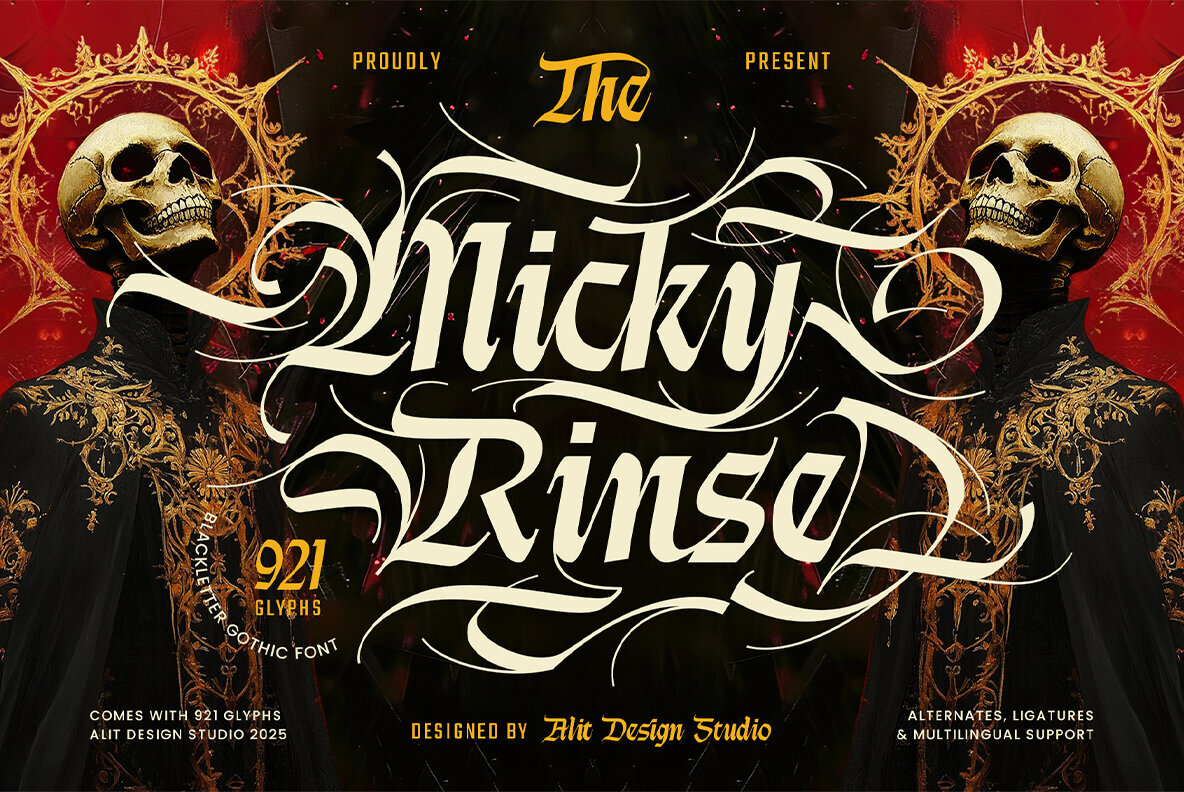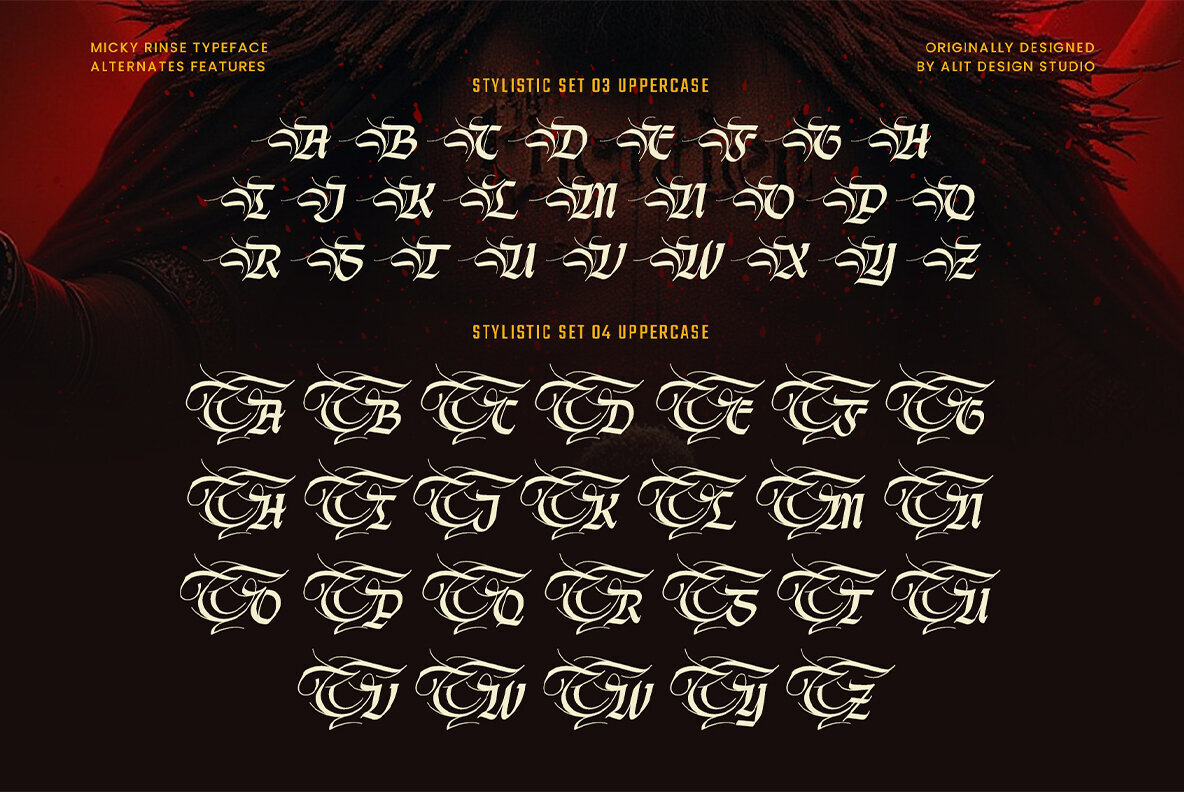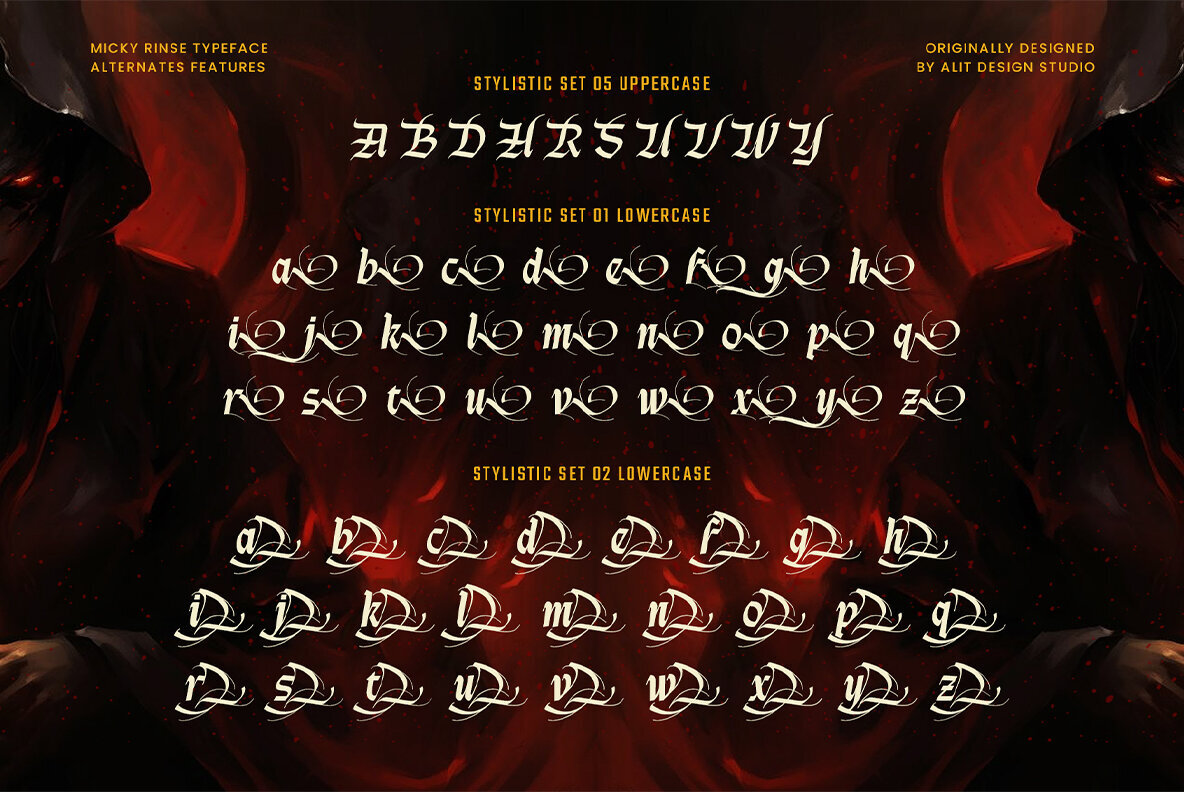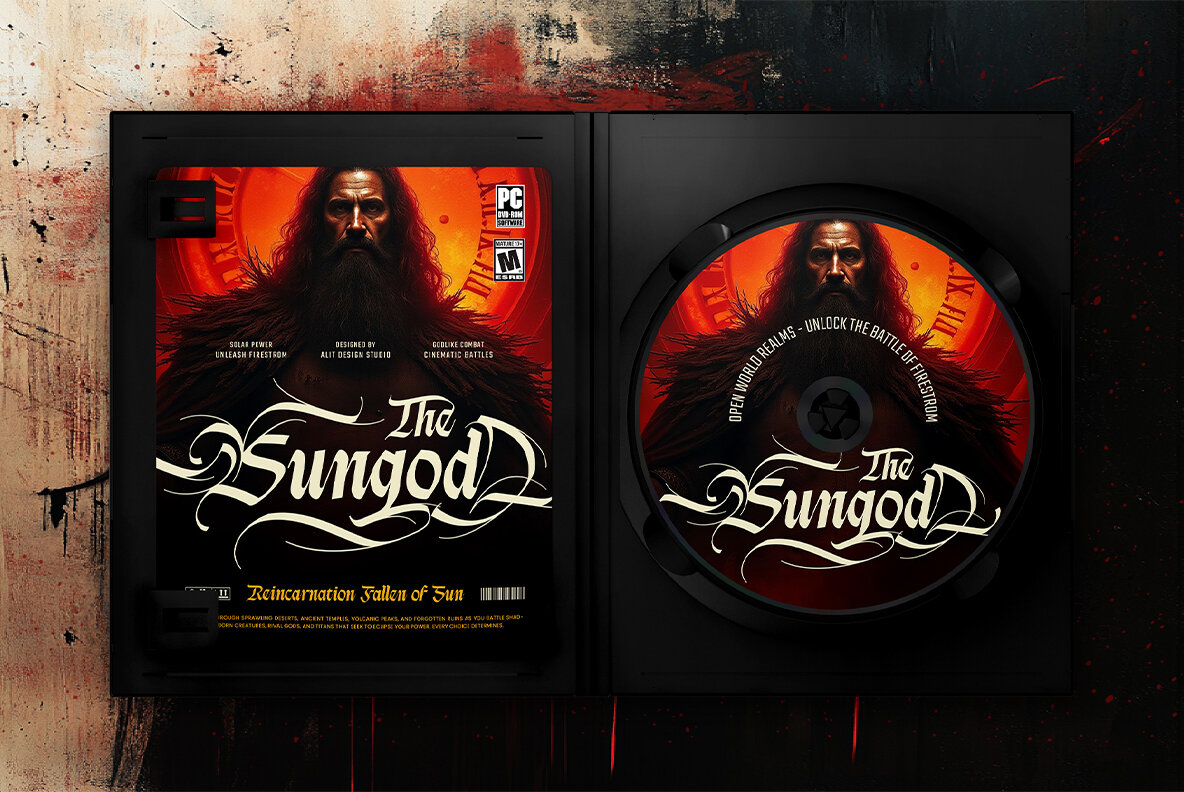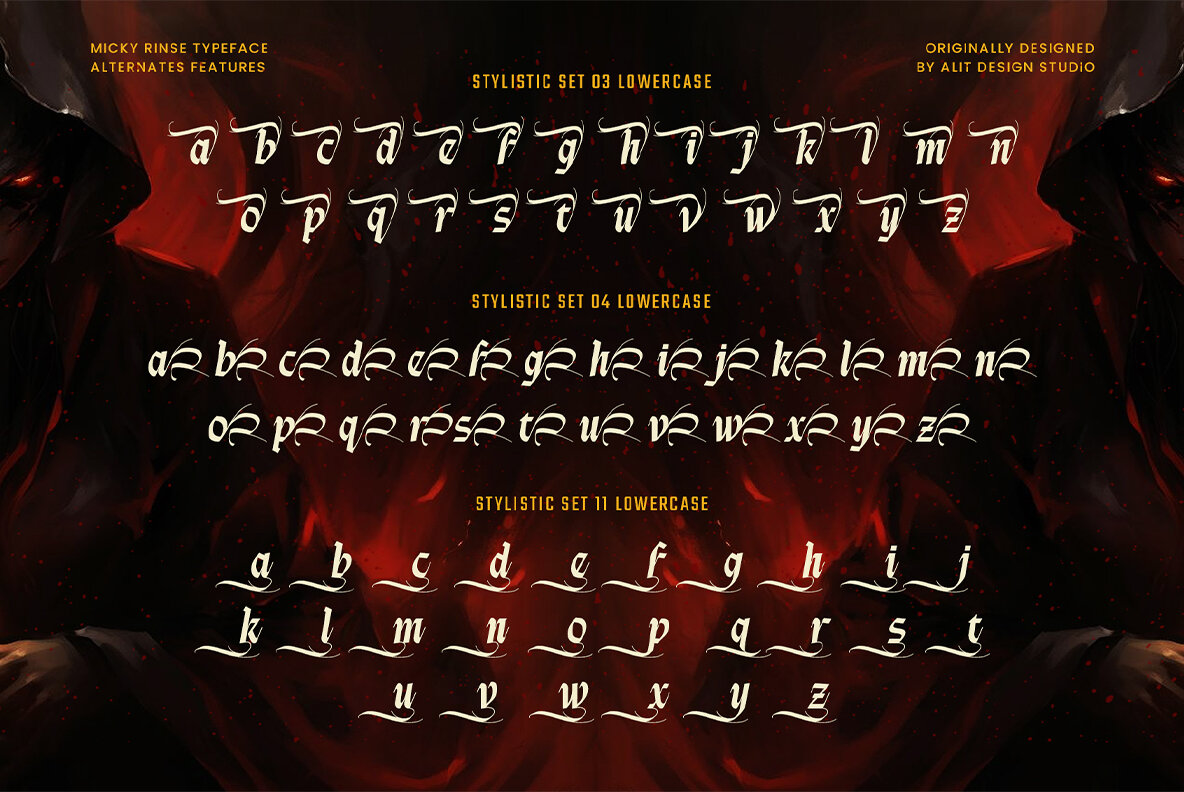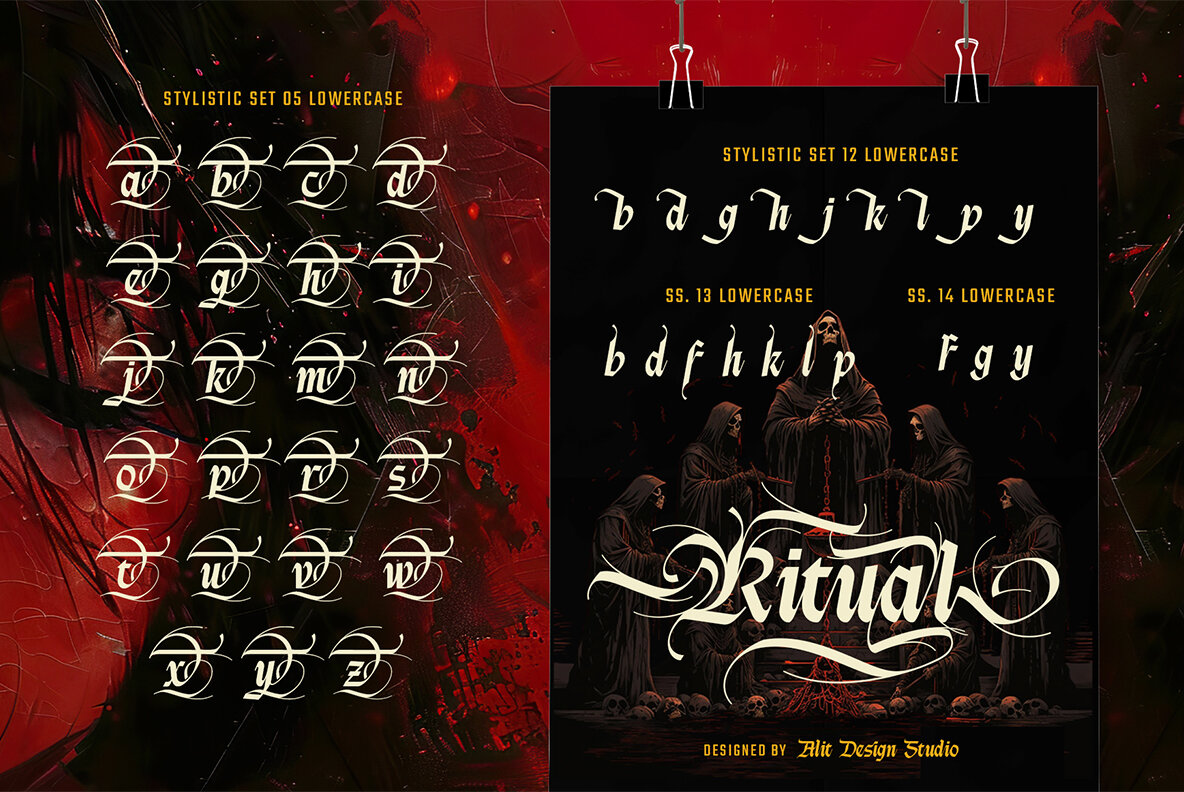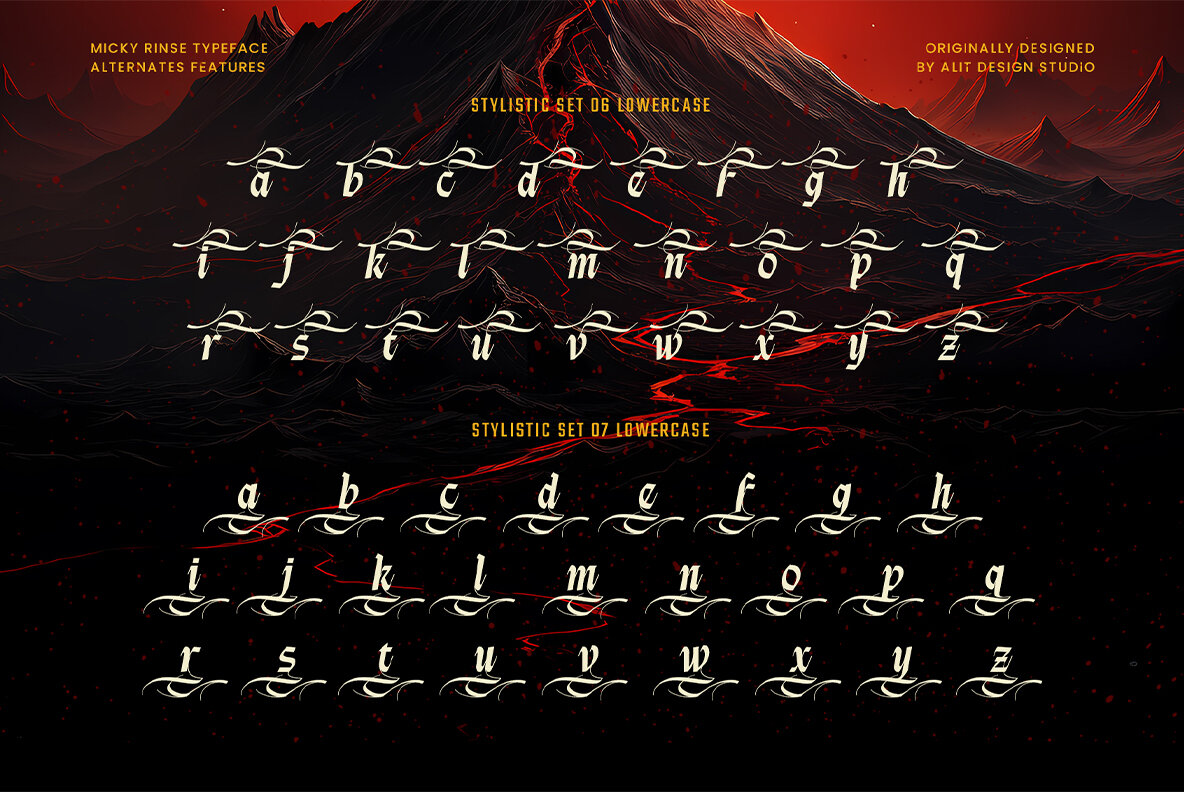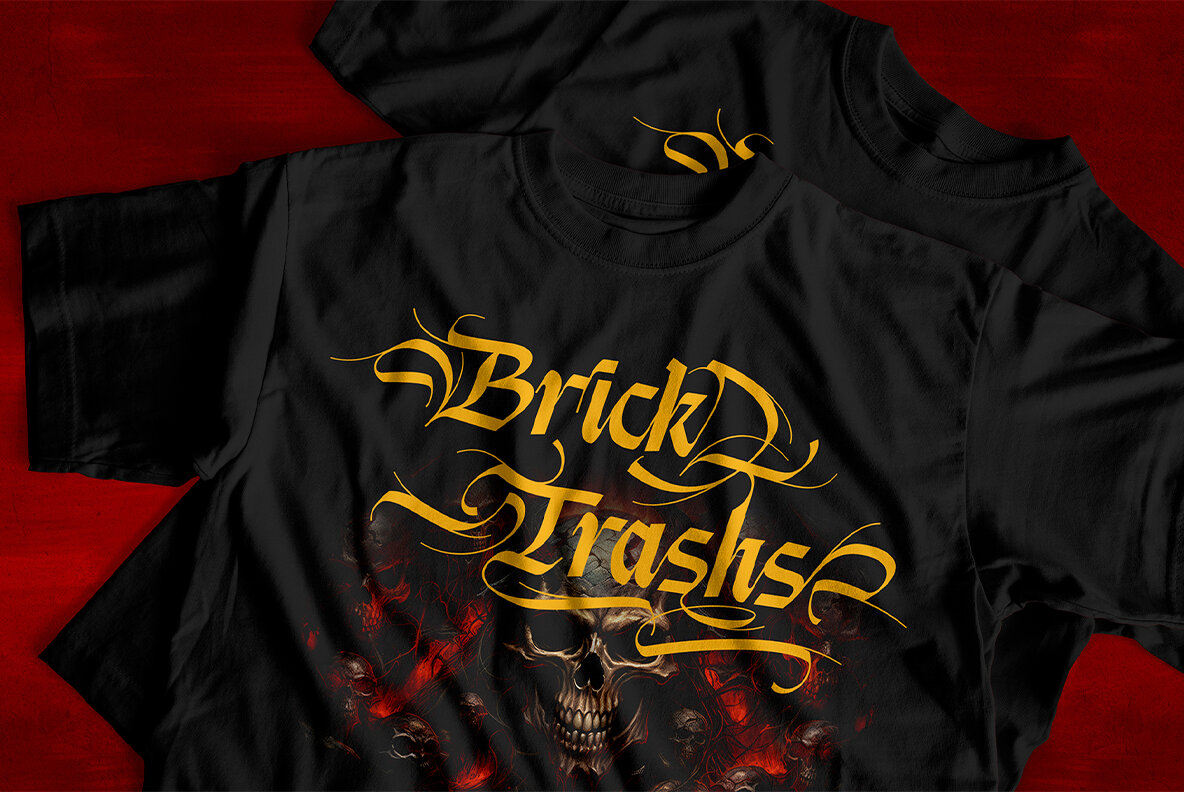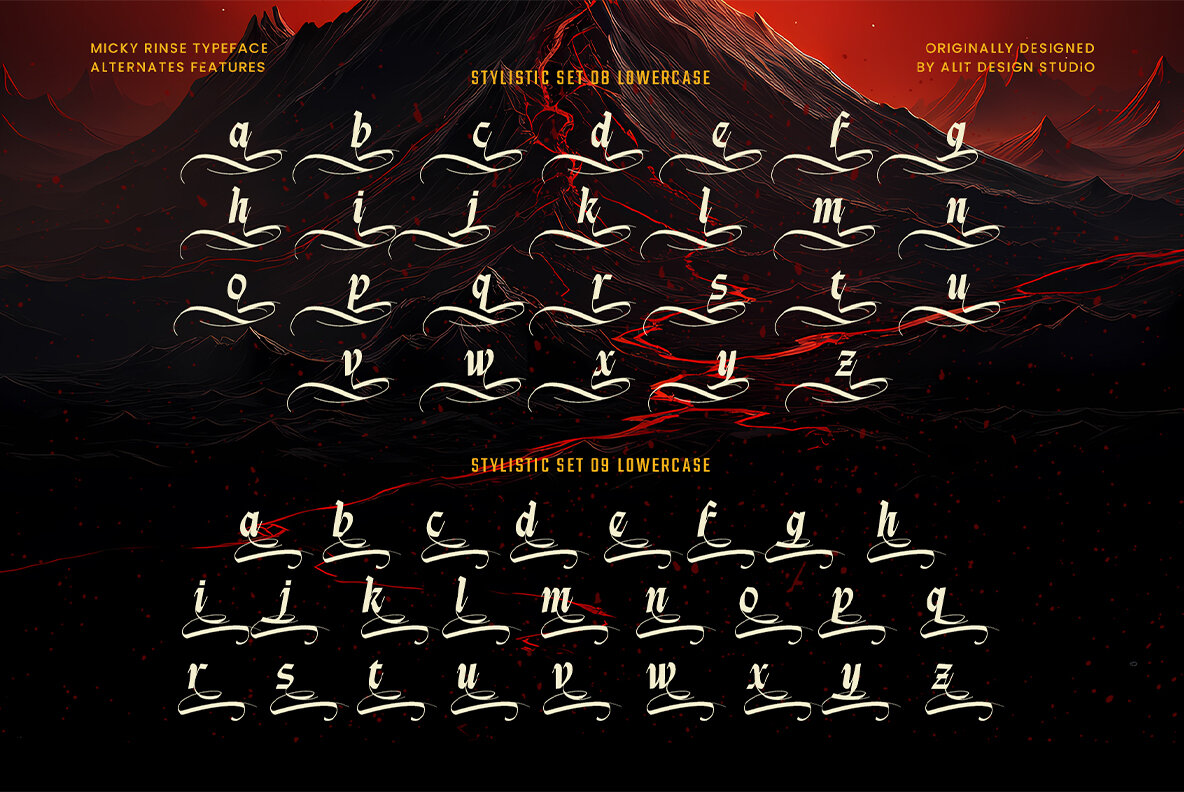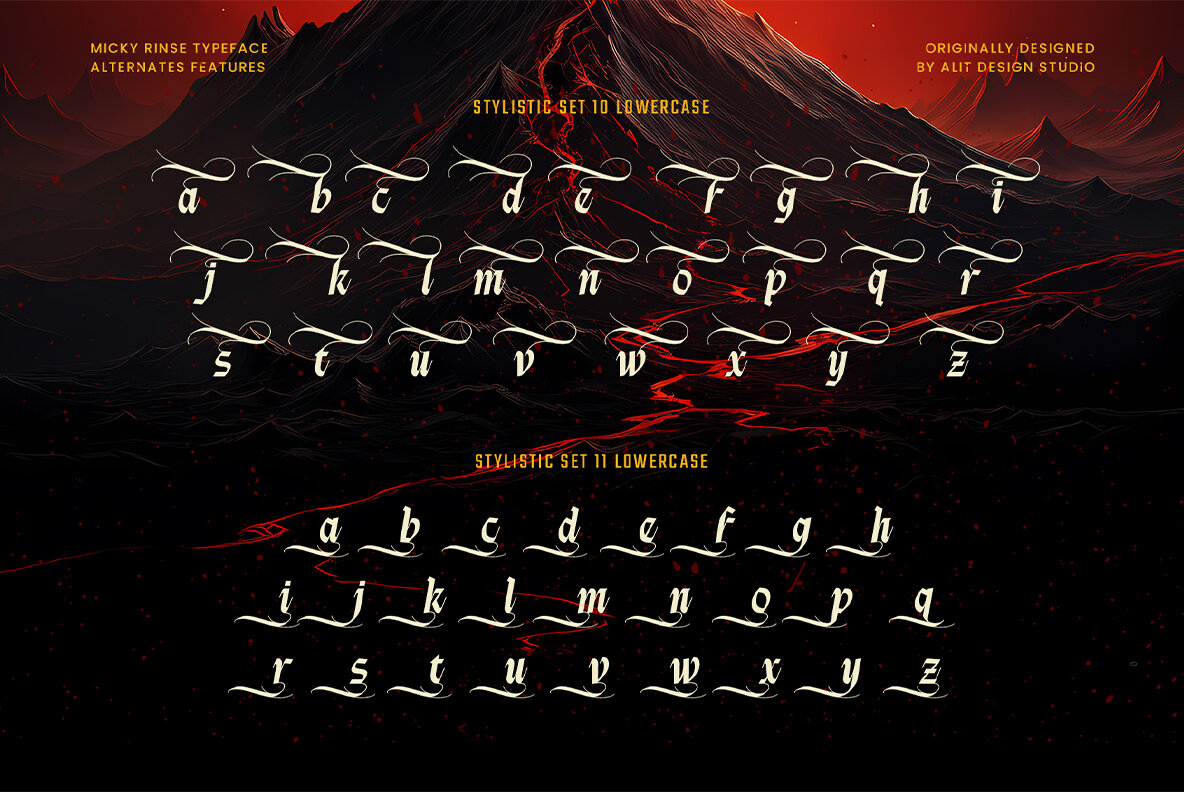
Micky Rinse Font
Micky Rinse Regular
Enter a realm where raw power marries intricate artistry. Micky Rinse, a blackletter typeface, redefines conventions and infuses a modern spirit into gothic tradition. Each letter epitomizes a statement, meticulously crafted to capture the essence of tattoo culture and heavy metal energy, while exuding the dark allure of epic fantasy. The typeface is equipped with a staggering 921 glyphs, offering limitless customization through stylistic alternates, ligatures, and decorative elements. Whether designing a striking logo, immersive movie poster, or statement apparel, Micky Rinse provides unparalleled creative freedom. Features: Perfect For: Micky Rinse stands as more than a typeface; it's an attitude for creators unafraid to be distinct and leave an indelible mark.Micky Rinse Typeface: Bold Elegance in Blackletter